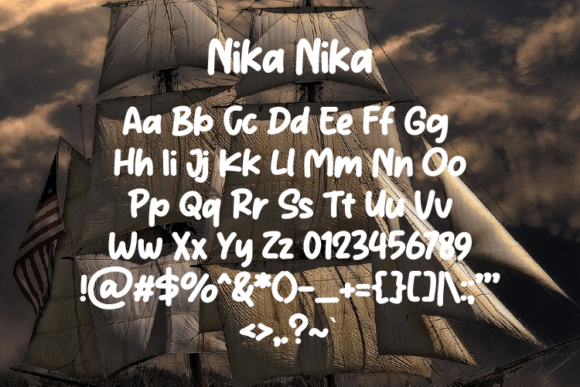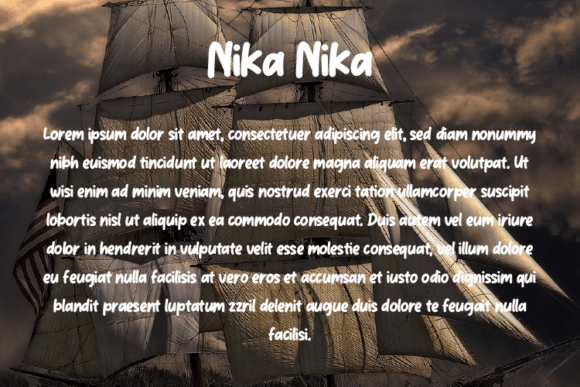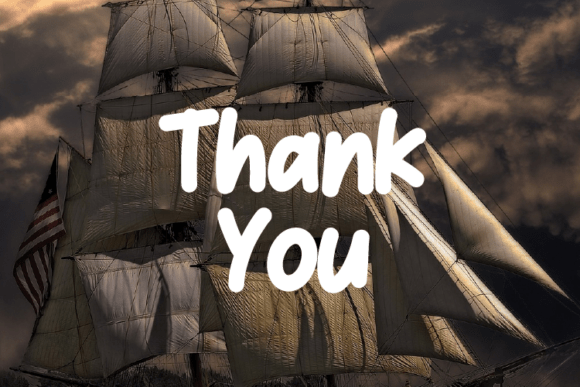
Introduction to Nika Nika Font
Imagine you’re in the middle of a creative project, and you’re searching for the perfect font to give it that extra oomph. You’ve spent hours scrolling through design resources, only to find that most fonts lack the flexibility and readability you need. But what if I told you that there’s a game-changing font that can elevate your design to the next level?
Key Features of Nika Nika Font
- High-quality design resource with a transparent background, perfect for creative projects.
- Includes a wide range of glyphs, ensuring that you have the necessary characters for your project.
- Designed with a unique aesthetic, the Nika Nika Font is perfect for adding a touch of elegance to your design.
Honest Review: Nika Nika Font
As a designer, I’m always on the lookout for high-quality design resources to elevate my creative projects. Recently, I stumbled upon the Nika Nika Font, and I must say, it’s a game-changer. Here’s my honest review.
- Clean and modern aesthetic: The Nika Nika Font boasts a sleek and sophisticated design that’s perfect for any modern project.
- High-quality glyphs: The font features a wide range of glyphs, including numbers, punctuation, and special characters, making it a versatile choice for creative projects.
While the Nika Nika Font is an excellent addition to any design library, it does have some limitations. For instance, the font is not suitable for use in situations where a bold or condensed font is required.
Overall Impression
In conclusion, the Nika Nika Font is a fantastic design resource that’s perfect for creative projects. Its high-quality glyphs, clean aesthetic, and transparent background make it a valuable addition to any design library. While it may have some limitations, it’s a free download that’s definitely worth checking out.
Nika Nika Font
The Nika Nika Font is a high-quality design resource ideal for creative projects. It features a transparent background, making it easy to customize and combine with other design elements.
Tips for Getting the Most Out of Nika Nika Font
To get the most out of the Nika Nika Font, experiment with different font sizes, colors, and combinations. You can also use it in conjunction with other design elements, such as graphics and images, to create a unique and eye-catching design.
The Nika Nika Font is ideal for a variety of creative projects, including logos, graphics, presentations, and documents. Its transparent background makes it easy to customize and combine with other design elements, making it a versatile and useful design resource.